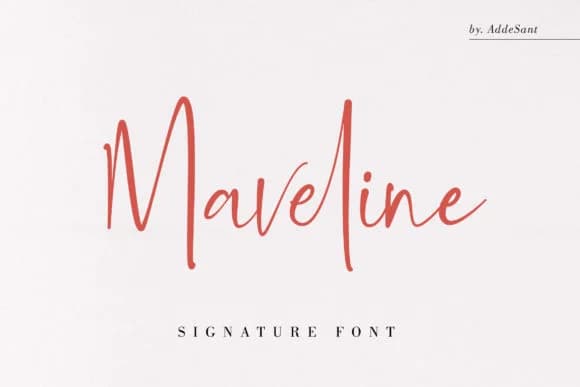
Imagine you're lettering a set of wedding invitations, the kind where guests immediately notice the thoughtful details and personal touches. Maveline Font, designed by sancreastd, captures that handcrafted energy without requiring hours of manual work. It's a casual, flowing script that reads like someone perfected each letterform by hand, though the real work happens much faster when you've got the right typeface handling it.
The font works beautifully across intimate design contexts where personality matters more than corporate polish. It shines on wedding invitation suites with all their coordinated pieces and layered designs. Boutique brand identities and hand-lettered cafΓ© or shop signage benefit equally from this typeface, where that human quality builds real customer connection. Think product labels for small-batch candles, artisan skincare lines, and craft beverages. You can also put it to work on social media headers, greeting card designs, and DIY craft projects where that handmade touch makes the genuine difference between forgettable and memorable work. The built-in ligatures create natural letter combinations that preserve readability while keeping that human-drawn character intact.
The typeface holds up beautifully across different sizes and print applications, maintaining its personality whether you're setting large display headlines or working at smaller scales. Grab Maveline from Creative Fabrica and bring that handmade authenticity into your designs.
Maveline Font is a script font that shines as a display or heading face. Pair it with a clean sans-serif or serif font for body text β the contrast creates a clear hierarchy while the two styles stay balanced and easy to read.
Maveline Font